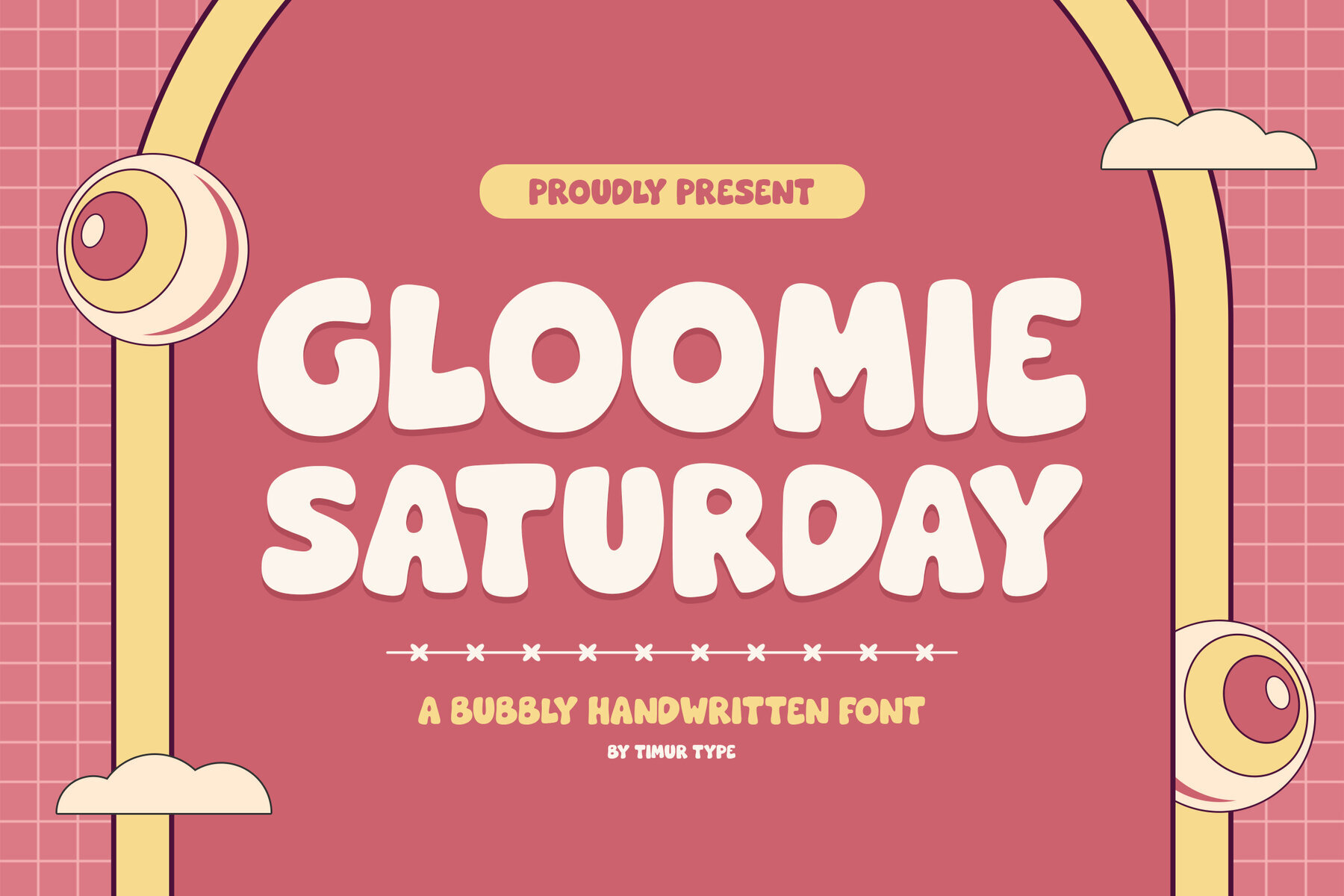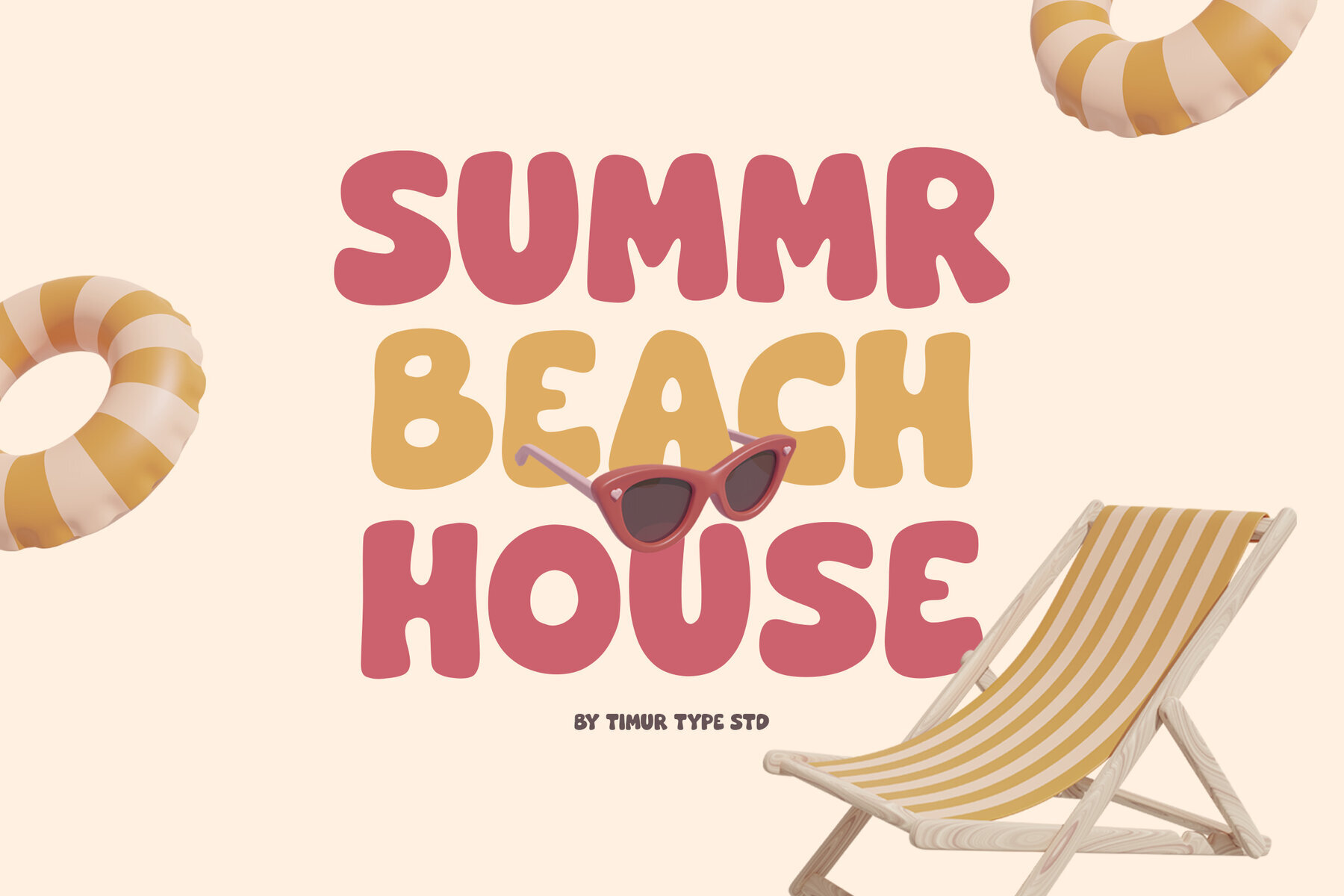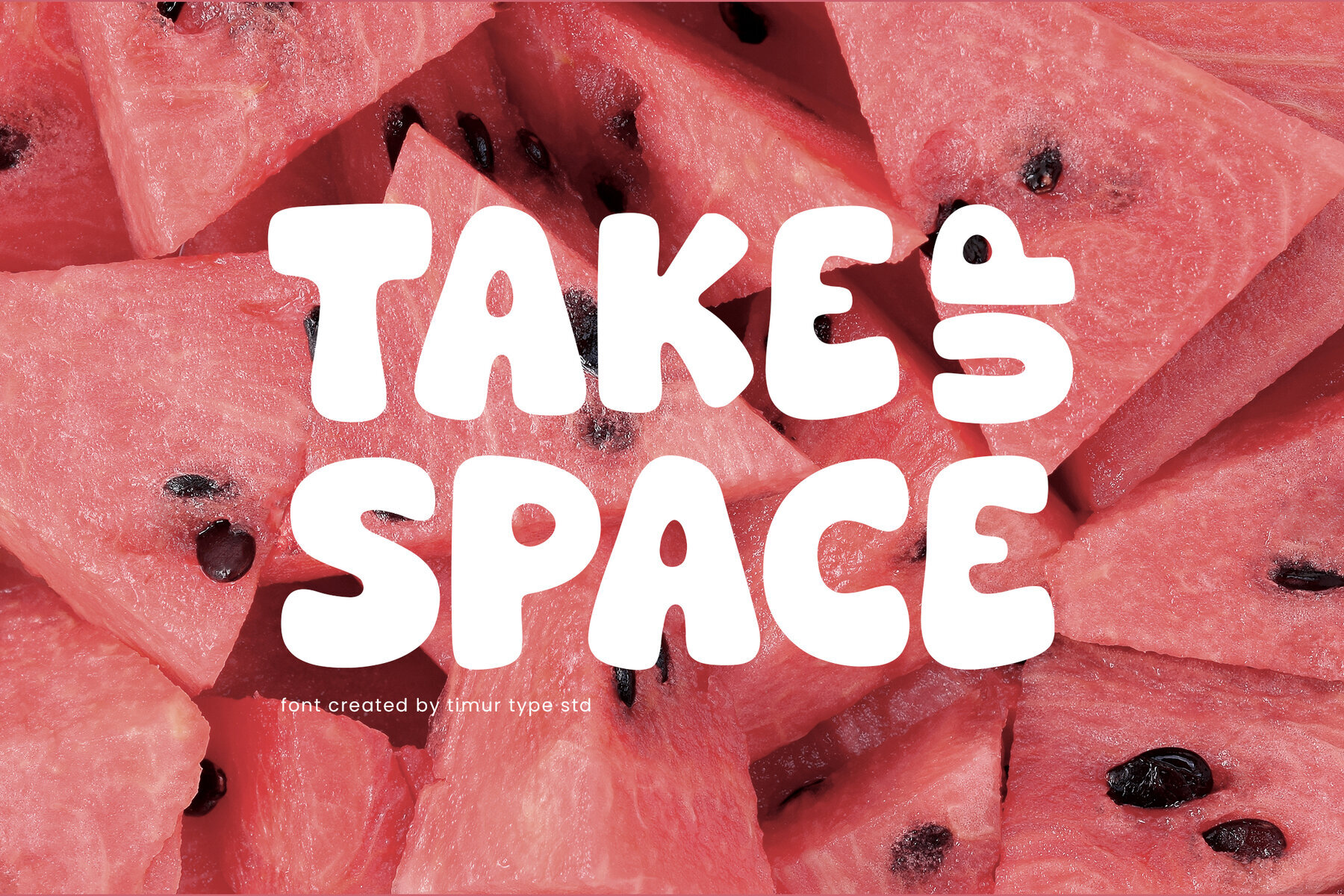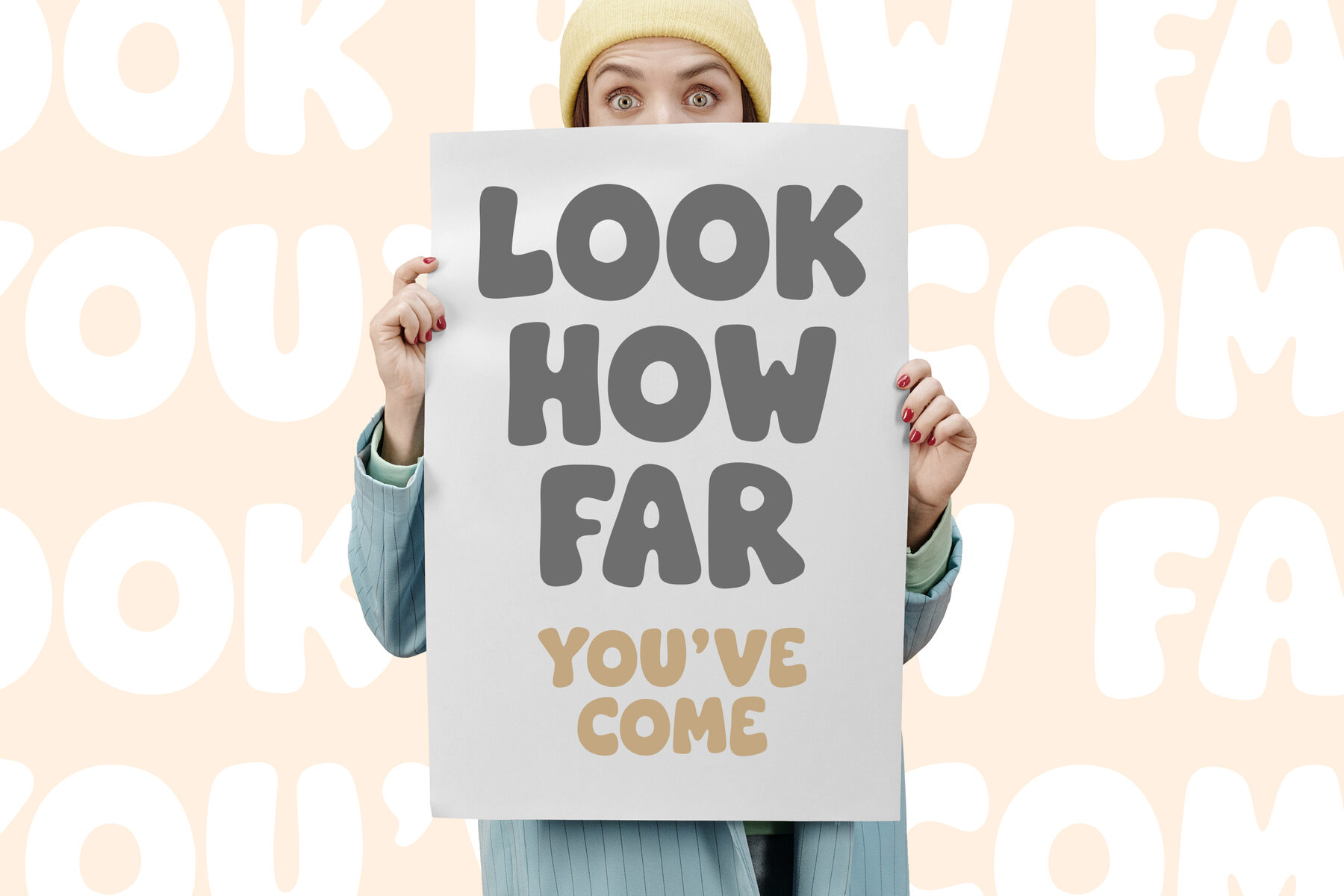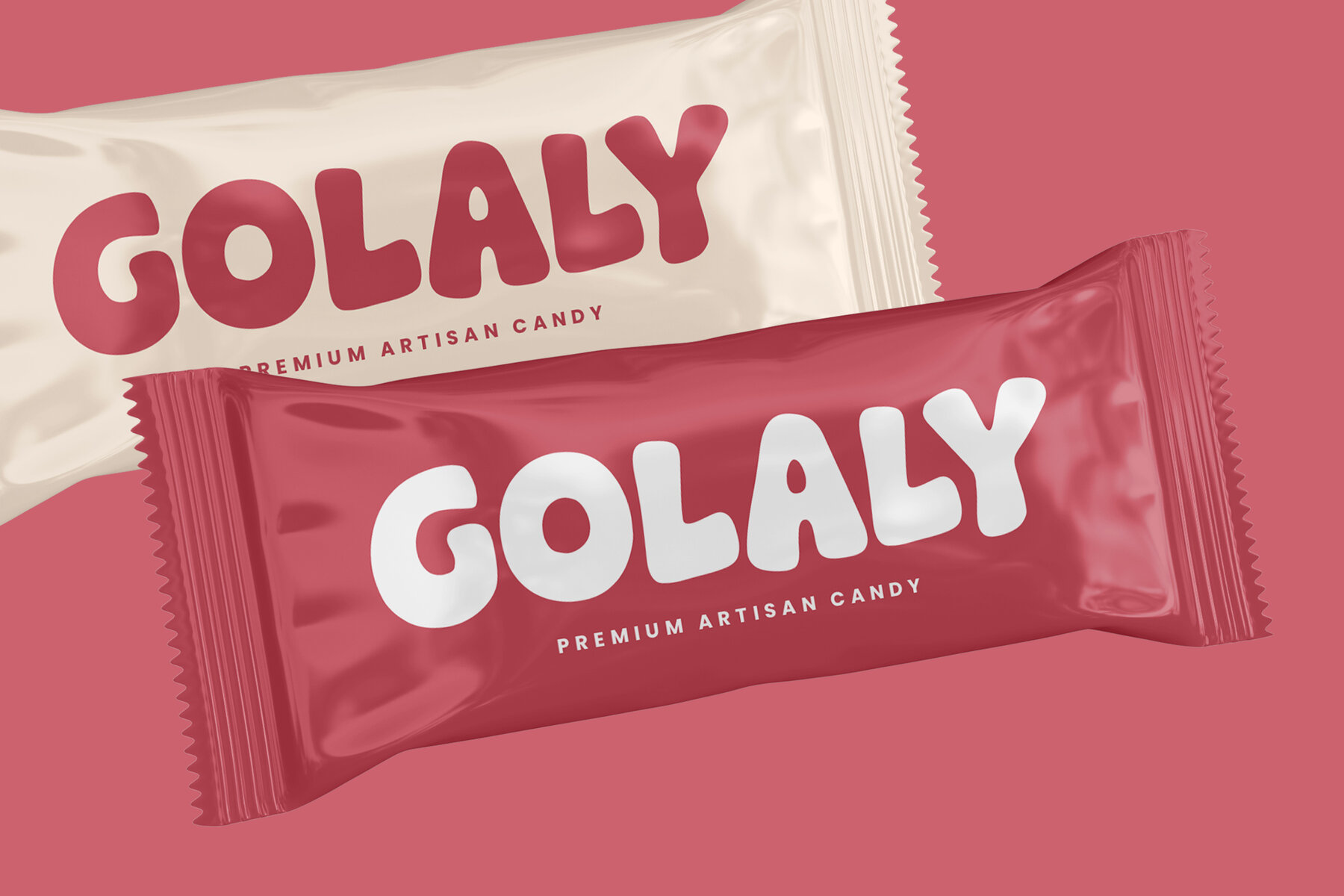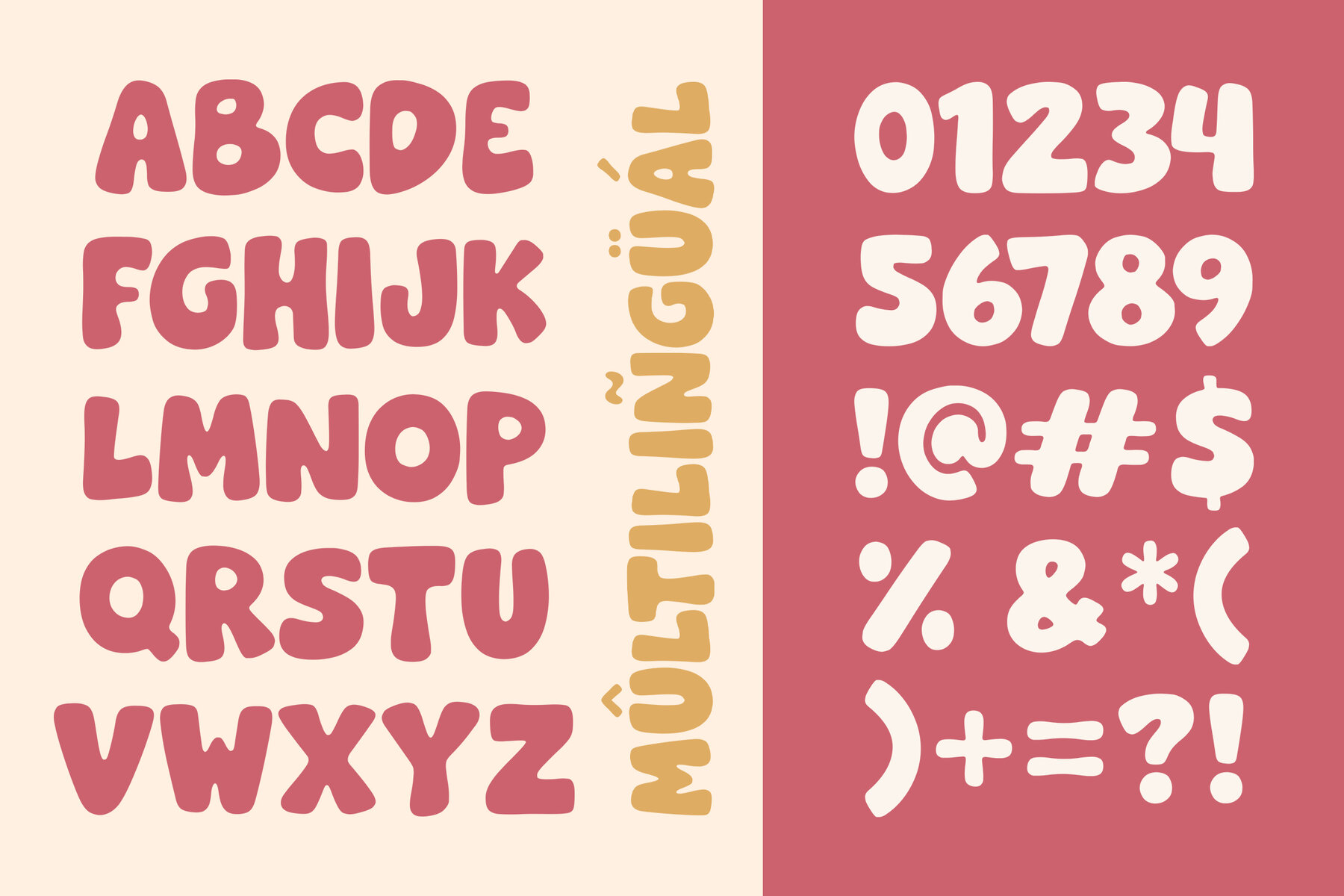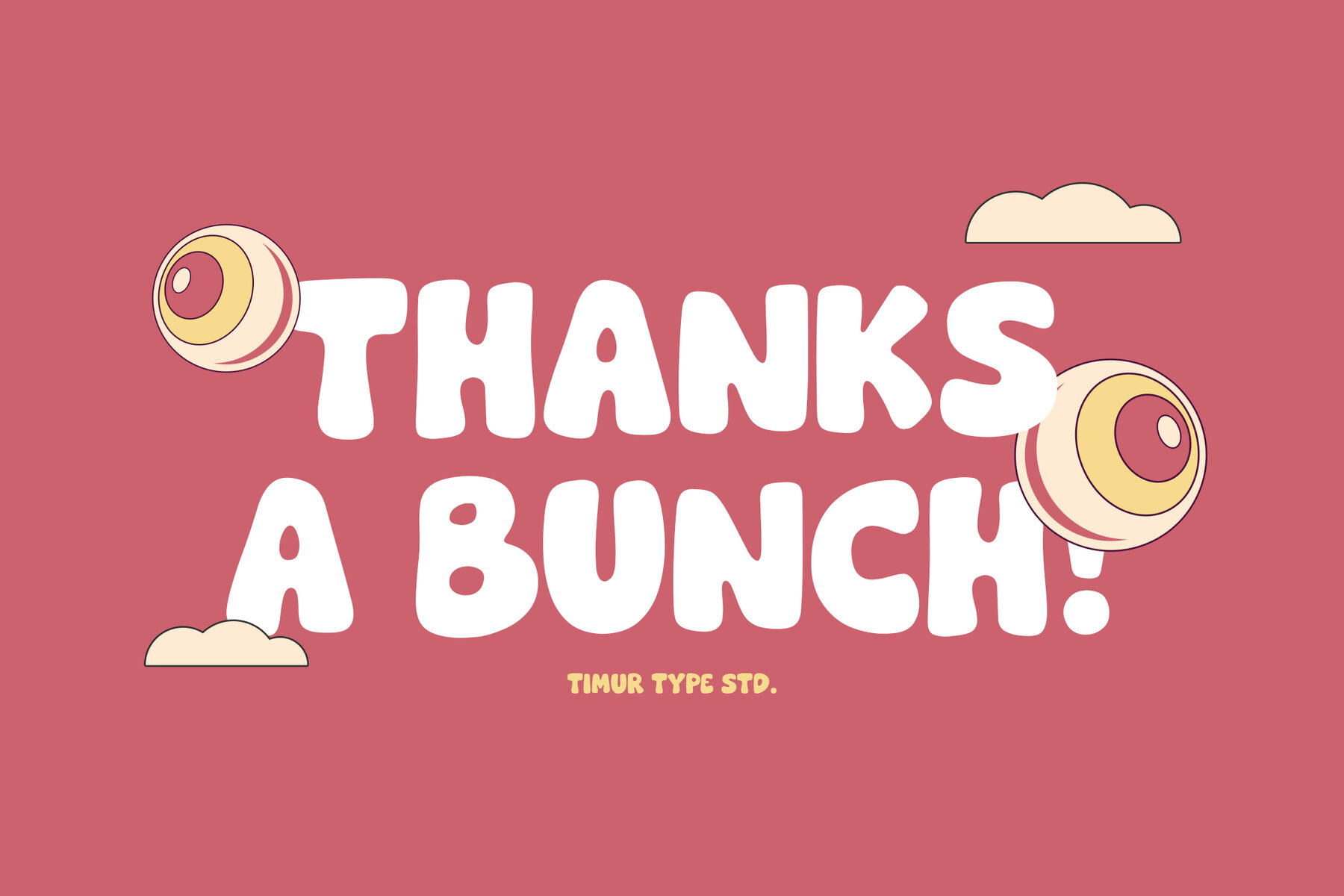
Gloomie Saturday Font
Gloomie Saturday
Gloomie Saturday is a charming, bubbly handwritten font that infuses your designs with a touch of handcrafted elegance. Its cheerful and playful style brings personality to every project, ensuring your message is both captivating and unique. Perfect for custom lettering, Gloomie Saturday transforms ordinary words into vibrant, engaging art, making your work truly memorable.
Ideal for various creative applications, this font adds a whimsical, authentic touch to invitations, posters, social media graphics, and more. Its lively character will highlight the joy and warmth in your designs, helping you communicate effectively with your audience. Let Gloomie Saturday bring a playful sparkle to your typography and make each design stand out effortlessly.